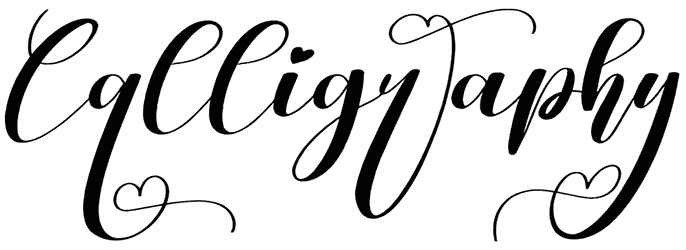
Calligraphy Font
Calligraphy is a sturdy script font that carries angular and elegant letters, thus looking insanely suitable for a wide set of editorial projects such as social media posts, gift cards, diplomas, invitations, or magazines.